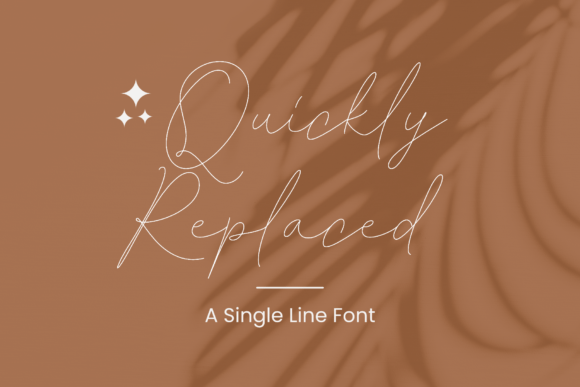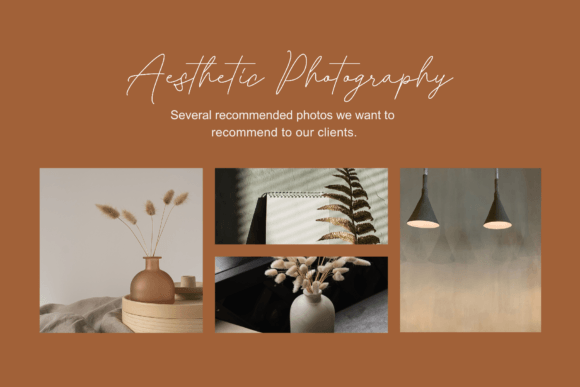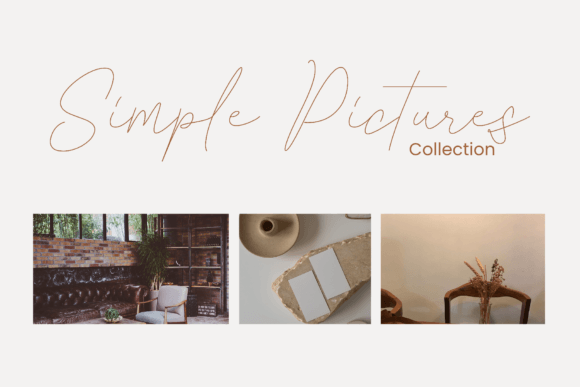
Quickly Replaced Font
About the Quickly Replaced Font
The Quickly Replaced Font offers a perfect balance of form and function for your design needs. Quickly Replaced is a sweet and simple single-line font. Quickly Replaced is perfect for product packaging, branding project, magazines, social media, weddings, or just used to express words above the background.
Its friendly, slightly informal style makes it ideal for headlines, short captions, and logos where a touch of approachability is desired. It excels in branding for artisan products, small businesses, or social media campaigns targeting a younger demographic. Avoid using it for large blocks of text or body copy; its simple design lacks the necessary x-height and contrast for comfortable readability in extended use.
Quickly Replaced pairs well with clean sans-serif fonts like Lato or Open Sans for a balanced, modern feel. For a more playful aesthetic, consider pairing it with a rounded geometric sans-serif such as Montserrat. A subtle serif like Merriweather could also add a touch of sophistication while maintaining readability.
The font’s overall personality is best described as friendly and approachable, with a hint of playfulness. Its limitations in legibility mean it shines best in applications where brevity and visual impact are prioritized over lengthy text.
Quickly Replaced Font Usage Examples
Quickly Replaced Font Example